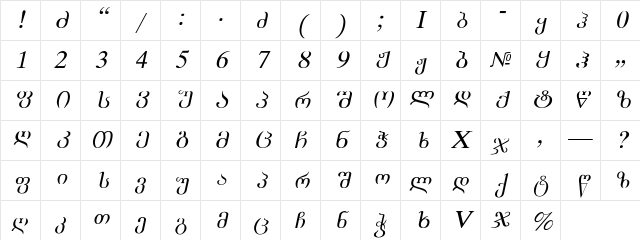
Academiury-ITV is a composed and adaptable typeface that performs quietly and consistently across a wide range of design contexts. The slanted form adds forward momentum and visual energy.